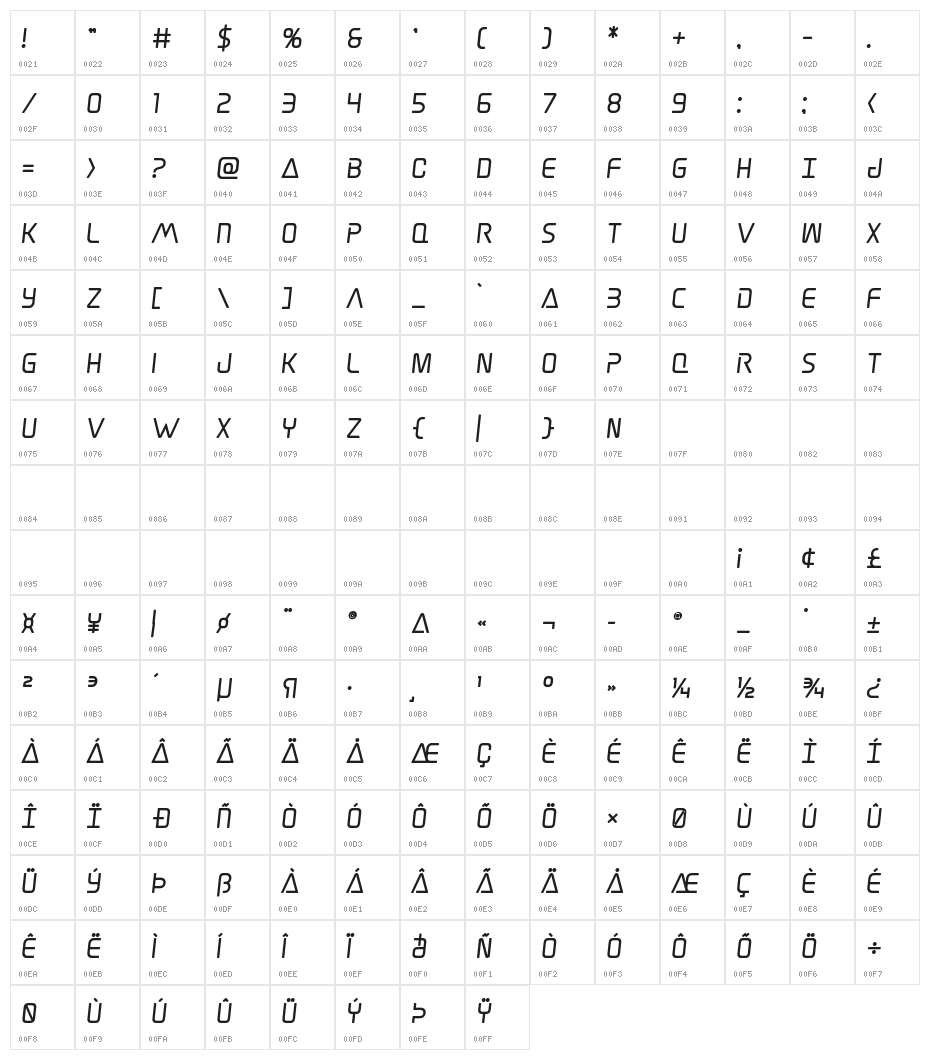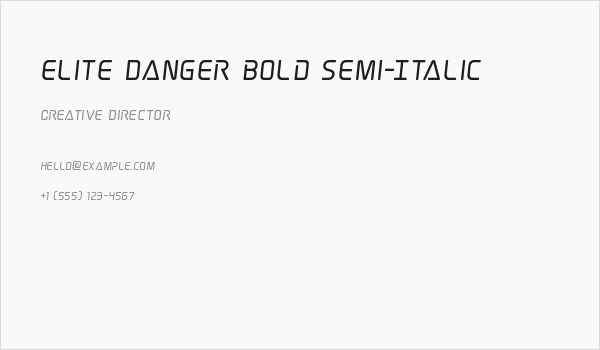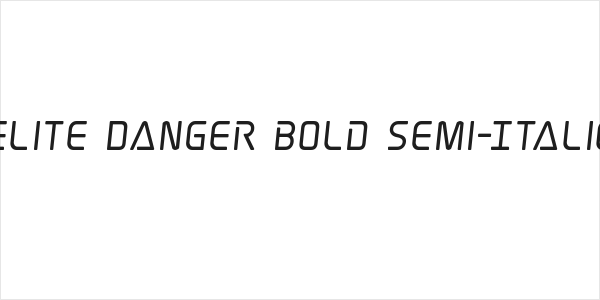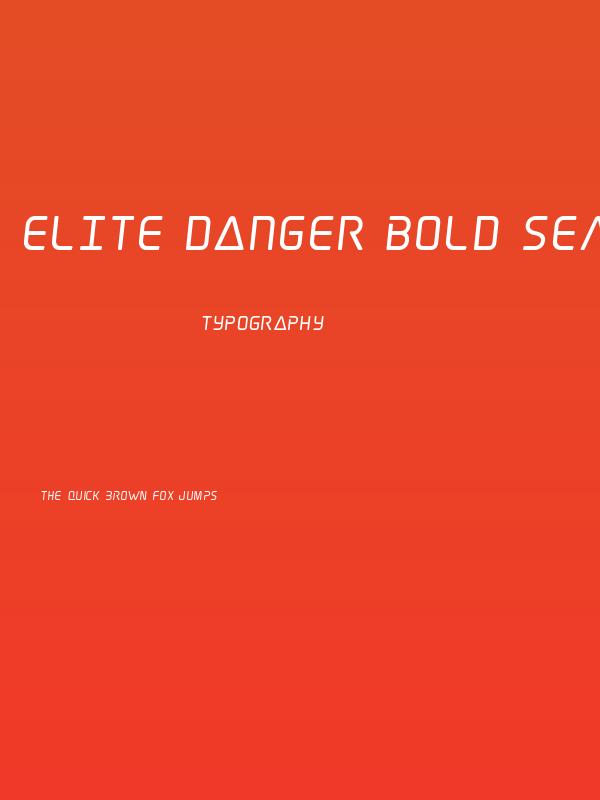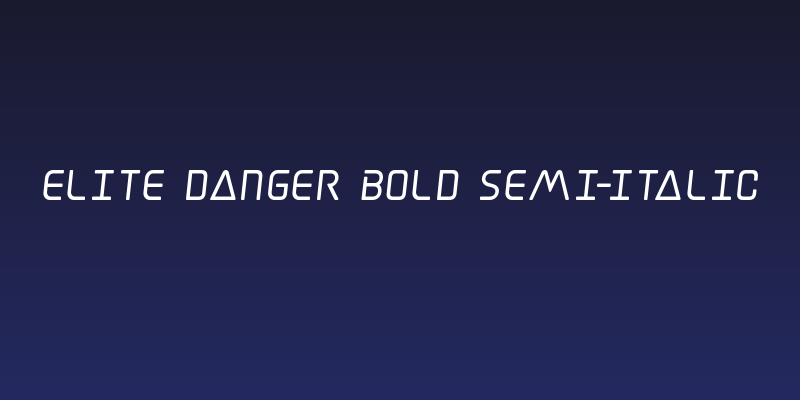
Elite Danger Bold Semi-Italic Font
Elite Danger Bold Semi-Italic Description
This font features a modern, geometric design with a bold and semi-italic style. The characters are slightly slanted, giving a dynamic and forward-moving appearance. It has a futuristic feel, with clean lines and a uniform stroke width that maintains consistency across all characters. The uppercase letters are distinct with a unique angularity, while the lowercase letters maintain a similar style, ensuring readability. The numerals are clear and well-proportioned, matching the overall aesthetic. Special characters are designed to blend seamlessly with the rest of the font, making it versatile for various uses.
| Use Case | Headlines, Logos, Digital interfaces |
| Proposed Projects | Ideal for technology branding, sci-fi themed projects, modern advertising, and digital interfaces. |